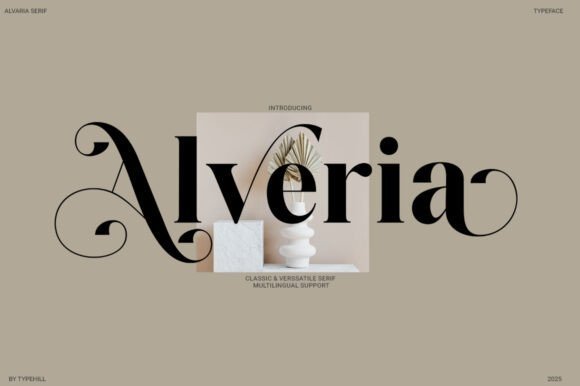
The Quest for the Perfect Serif: Unveiling the Timeless Elegance of Alveria Serif Font
Have you ever found yourself stuck in front of a blank canvas, searching for the perfect font to elevate your design to the next level? The frustration is real, but the excitement is palpable when you finally stumble upon the perfect match. For designers seeking a serif font that exudes classic sophistication with a dash of modern flair, look no further than Alveria Serif Font.
Crafted with meticulous attention to detail, Alveria Serif Font is a masterclass in elegance and refinement. With its harmonious proportions and subtle sense of luxury, this font is the ultimate go-to for designers looking to add a touch of sophistication to their editorial designs, branding, packaging, and luxurious print projects.
Alveria Serif Font Key Features
- Font Family: Alveria Serif, with multiple weights and styles available, including Regular, Italic, Bold, and Bold Italic.
- Unique Characteristics: Alveria Serif features a classic, elegant design with a strong serif style, making it ideal for use in books, magazines, and other publications that require a sophisticated look.
- Language Support: Supports a wide range of languages, including Latin, Greek, and Cyrillic scripts, making it a versatile choice for global applications.
Alveria Serif Font Review
As a designer, I’ve had the chance to work with a wide range of fonts, but the Alveria Serif Font caught my eye recently. Here’s my honest review.
- The Alveria Serif Font has a beautiful, elegant design that’s perfect for creating a sophisticated and professional look.
- The font’s serif details are well-crafted, giving it a traditional feel that’s reminiscent of classic literature.
- The font family includes a range of weights, from light to bold, making it easy to find the perfect fit for your design.
- The font is highly legible, even at small sizes, making it perfect for body text or captions.
- The font’s design may be too ornate for some projects, which could make it difficult to read in certain contexts.
- The font family is not as extensive as some other popular serif fonts, which may limit its versatility.
- The font may not be suitable for projects that require a more modern or edgy feel.
The Alveria Serif Font is a beautiful, elegant font that’s perfect for creating a sophisticated and professional look. While it may have some limitations, it’s a great choice for projects that require a traditional, classic feel. I’d definitely recommend it to designers looking for a high-quality serif font.
Tips for Getting the Most Out of Alveria Serif
To get the most out of Alveria Serif, consider the following tips:
- Pair Alveria Serif with a sans-serif font for a balanced look.
- Use Alveria Serif for headings and titles to create a clear visual hierarchy.
- Experiment with different font sizes and styles to add depth and interest to your design.
Alveria Serif is a versatile font suitable for a variety of use cases